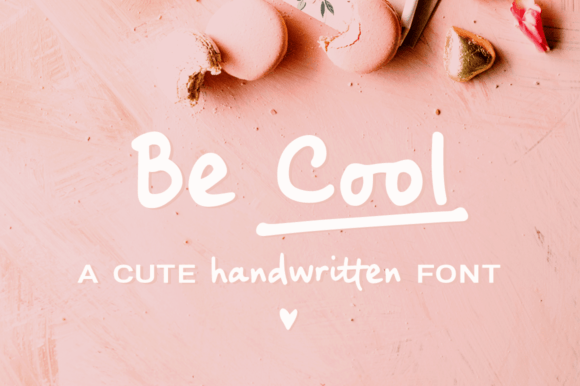
Be Cool Font: A Cute and Friendly Handwritten Font
Are you looking for a font that can add a touch of warmth and personality to your designs? Look no further than Be Cool Font, a delightful handwritten font that is sure to become a valuable asset in your font library. In this article, we’ll take a closer look at Be Cool Font, its features, and how it can enhance your creations.
What is Be Cool Font?
Be Cool Font is a cute and friendly handwritten font that is designed to bring a sense of approachability and playfulness to your designs. Its unique and charming style makes it perfect for a wide range of projects, from creative branding and advertising to packaging, posters, and more.
Be Cool Font is a versatile font that can be used for both personal and commercial projects. Its friendly and approachable style makes it an excellent choice for designers who want to create a warm and inviting atmosphere in their designs.
Key Features of Be Cool Font
- Handwritten style: Be Cool Font has a unique, handwritten style that adds a personal touch to your designs.
- Cute and friendly: The font’s playful and approachable style makes it perfect for designs that require a warm and inviting atmosphere.
- Versatile: Be Cool Font can be used for a wide range of projects, from branding and advertising to packaging and posters.
- Easily readable: The font is designed to be easily readable, making it perfect for body text and headings.
Ideas for Using Be Cool Font
Be Cool Font is a versatile font that can be used in a variety of projects. Here are some ideas to get you started:
- Branding and advertising: Use Be Cool Font to create a friendly and approachable brand identity that resonates with your target audience.
- Packaging design: Add a personal touch to your packaging designs with Be Cool Font, making your products stand out on store shelves.
- Posters and flyers: Create eye-catching posters and flyers with Be Cool Font, perfect for promoting events, products, or services.
- Social media graphics: Use Be Cool Font to create engaging social media graphics that showcase your brand’s personality.
Tips and Tricks for Using Be Cool Font
Here are some tips and tricks to help you get the most out of Be Cool Font:
- Experiment with font sizes: Be Cool Font looks great in a variety of font sizes, from large headings to smaller body text.
- Pair with other fonts: Try pairing Be Cool Font with other fonts to create a unique and visually appealing typography.
- Use in combination with images: Be Cool Font looks great when used in combination with images, adding a personal touch to your designs.
Benefits of Using Be Cool Font
Be Cool Font offers a range of benefits that make it an excellent addition to your font library:
- Unique and charming style: Be Cool Font has a unique and charming style that sets it apart from other fonts.
- Versatility: The font can be used for a wide range of projects, from branding and advertising to packaging and posters.
- Easily readable: Be Cool Font is designed to be easily readable, making it perfect for body text and headings.
- Time-saving: With Be Cool Font, you can create professional-looking designs in no time, saving you time and effort.
In conclusion, Be Cool Font is a cute and friendly handwritten font that is sure to become a valuable asset in your font library. Its unique and charming style, versatility, and readability make it perfect for a wide range of projects. Whether you’re a designer, artist, or DIY enthusiast, Be Cool Font is an excellent choice for adding a personal touch to your creations.